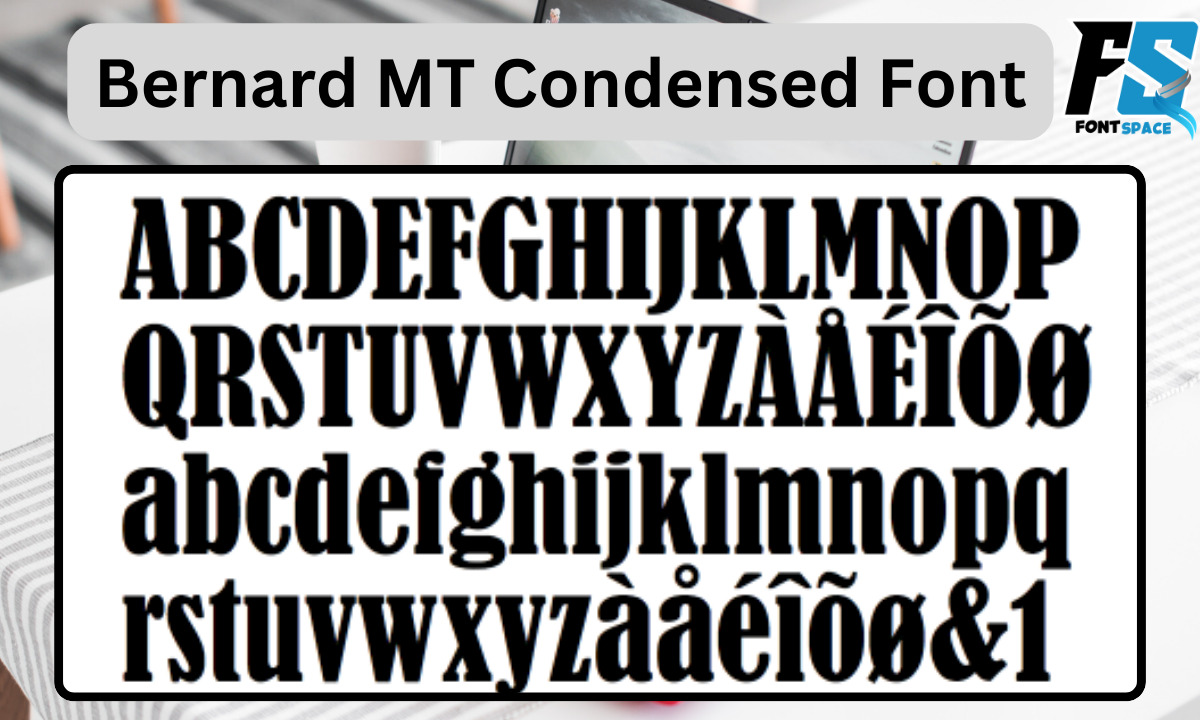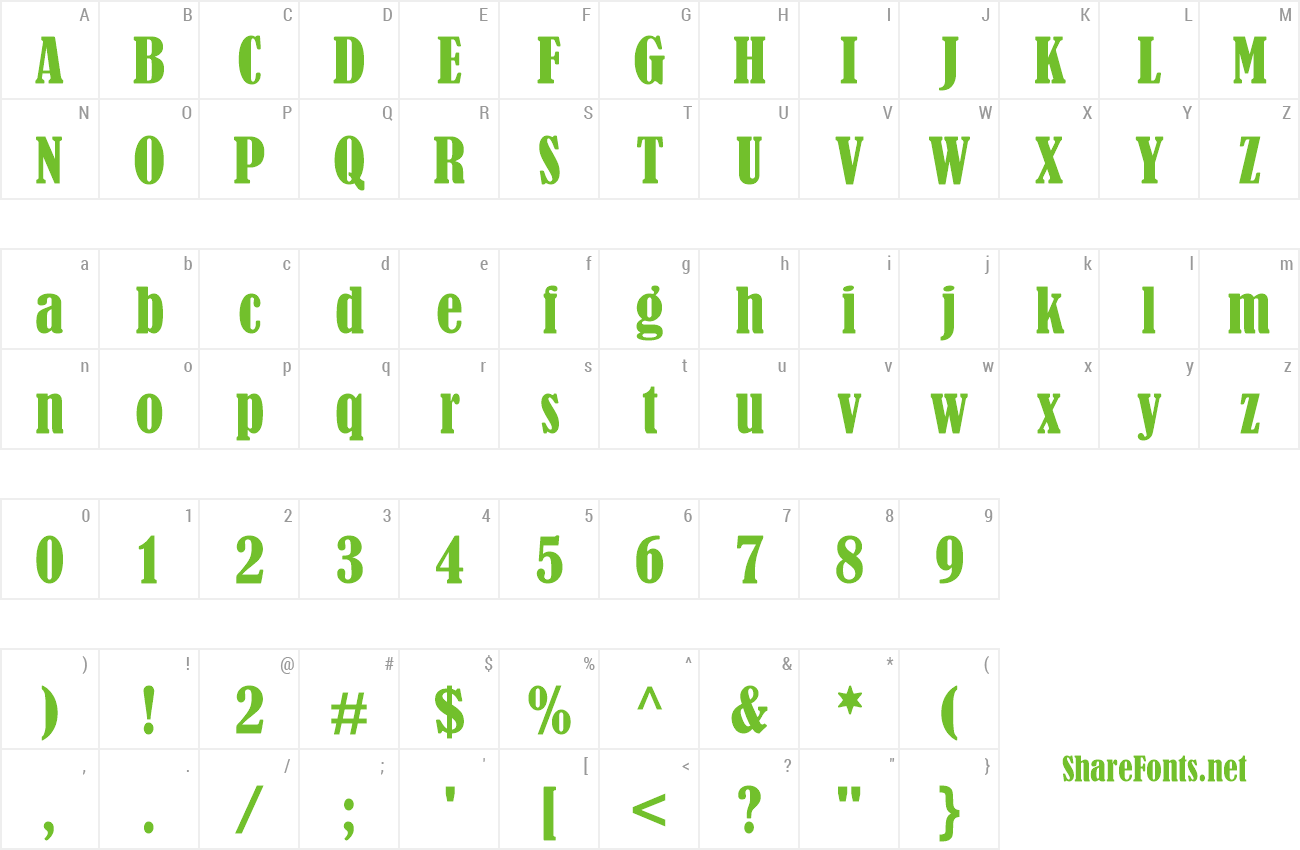
Bernard Mt Font
Bernard Mt Font - Monotype bernard condensed is closely associated with this period, a condensed roman. Discover the free bernard mt condensed regular font at free font download ! This font features bold, condensed. A bold, condensed serif font with strong vertical emphasis.
A bold, condensed serif font with strong vertical emphasis. Discover the free bernard mt condensed regular font at free font download ! This font features bold, condensed. Monotype bernard condensed is closely associated with this period, a condensed roman.
A bold, condensed serif font with strong vertical emphasis. Monotype bernard condensed is closely associated with this period, a condensed roman. This font features bold, condensed. Discover the free bernard mt condensed regular font at free font download !
This font features bold, condensed. Discover the free bernard mt condensed regular font at free font download ! A bold, condensed serif font with strong vertical emphasis. Monotype bernard condensed is closely associated with this period, a condensed roman.
A bold, condensed serif font with strong vertical emphasis. This font features bold, condensed. Discover the free bernard mt condensed regular font at free font download ! Monotype bernard condensed is closely associated with this period, a condensed roman.
This font features bold, condensed. A bold, condensed serif font with strong vertical emphasis. Monotype bernard condensed is closely associated with this period, a condensed roman. Discover the free bernard mt condensed regular font at free font download !
Monotype bernard condensed is closely associated with this period, a condensed roman. This font features bold, condensed. A bold, condensed serif font with strong vertical emphasis. Discover the free bernard mt condensed regular font at free font download !
A bold, condensed serif font with strong vertical emphasis. This font features bold, condensed. Discover the free bernard mt condensed regular font at free font download ! Monotype bernard condensed is closely associated with this period, a condensed roman.
This font features bold, condensed. Discover the free bernard mt condensed regular font at free font download ! A bold, condensed serif font with strong vertical emphasis. Monotype bernard condensed is closely associated with this period, a condensed roman.
This font features bold, condensed. A bold, condensed serif font with strong vertical emphasis. Monotype bernard condensed is closely associated with this period, a condensed roman. Discover the free bernard mt condensed regular font at free font download !
Bernard MT Condensed Font
A bold, condensed serif font with strong vertical emphasis. Monotype bernard condensed is closely associated with this period, a condensed roman. This font features bold, condensed. Discover the free bernard mt condensed regular font at free font download !
Monotype bernard condensed is closely associated with this period, a condensed roman. Discover the free bernard mt condensed regular font at free font download ! This font features bold, condensed. A bold, condensed serif font with strong vertical emphasis.
Monotype Bernard Condensed Is Closely Associated With This Period, A Condensed Roman.
This font features bold, condensed. Discover the free bernard mt condensed regular font at free font download ! A bold, condensed serif font with strong vertical emphasis.